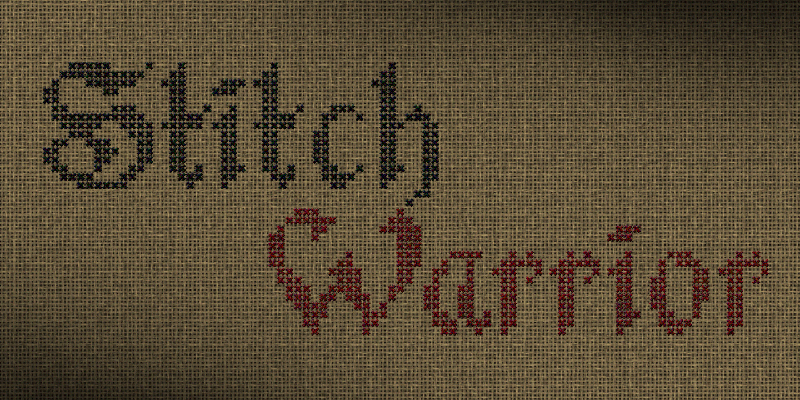
Preview and download Stitch Warrior Font. Created by Runes & Fonts in Gothic Various styles with Demo license.
STITCH WARRIOR demo is a trial version of a gothic style stitch font. It 's made of cross stitches ("x") and even kerning is based on 1, 2 or 3 stitches I was trying to be as accurate and close to reality as possible. This demo version is free for personal use only. For commercial and full version please visit: http://www.rolandhuse.com http://www.myfonts.com/foundry/MyHandwritings/ Please contatct me if you have any questions or feedback, also about the following: - This family does not language ALL extensions, but I am willing to create any extensions on request - Discovering kerning problems while using - Or any other question or feedback. You MAY NOT sell this font or claim them as your own. You MAY NOT edit or rename this font. You MAY NOT redistribute this font. Thank you & I hope you like this font, Roland http://www.rolandhuse.com https://www.facebook.com/pages/Runes-And-Fonts/123221817784772 |